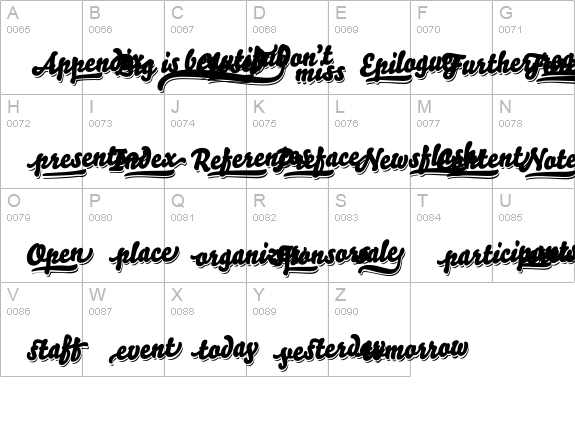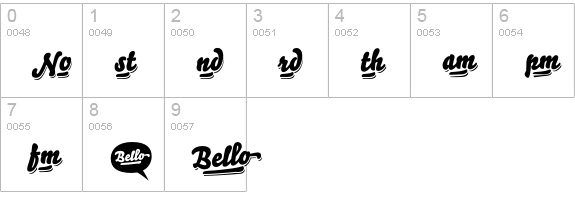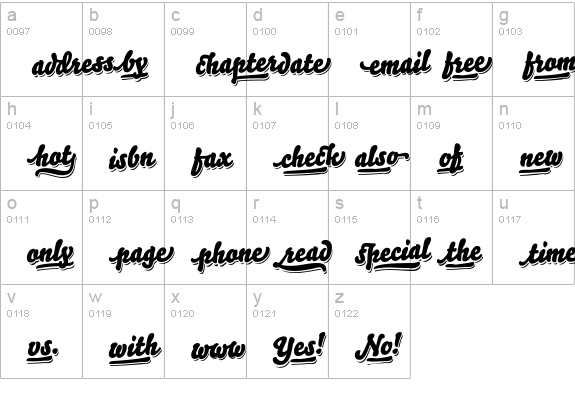
Bello-WordsSolo Font Details
Introducing Bello-WordsSolo font, a charming and elegant typeface perfect for adding a touch of sophistication to your designs. With its graceful curves and stylish letterforms, Bello-WordsSolo exudes a sense of class and refinement. This versatile font is ideal for a wide range of projects, from invitations to branding to packaging. The best part? Bello-WordsSolo is available for free download at FontsMarket.com. That's right, you can add this beautiful font to your collection without spending a dime. So go ahead and elevate your designs with the timeless elegance of Bello-WordsSolo font.